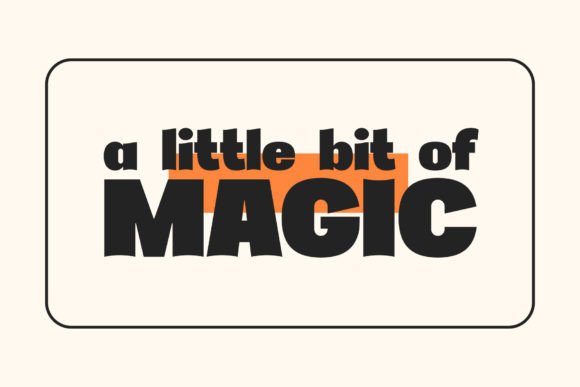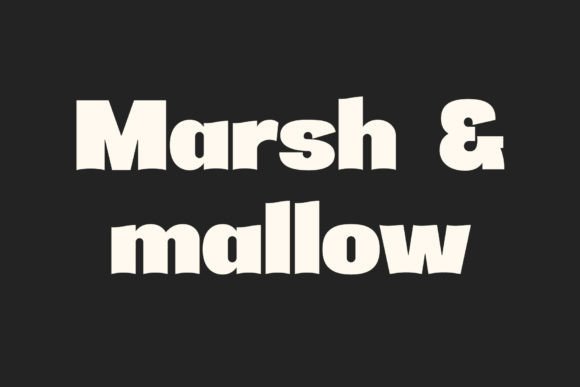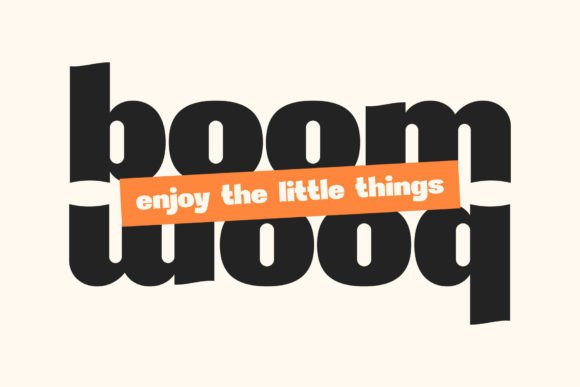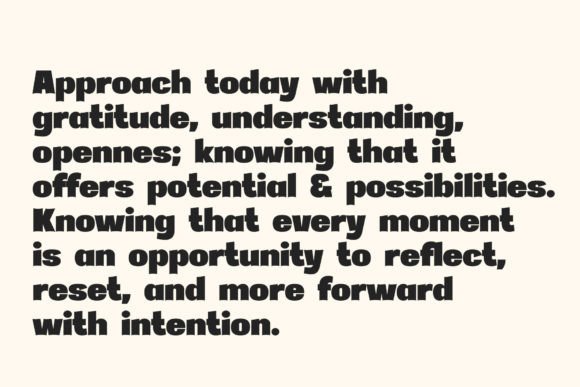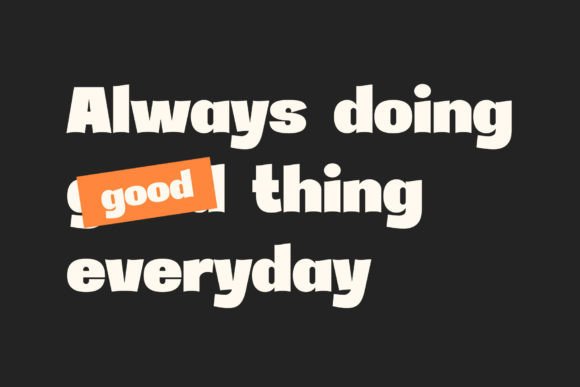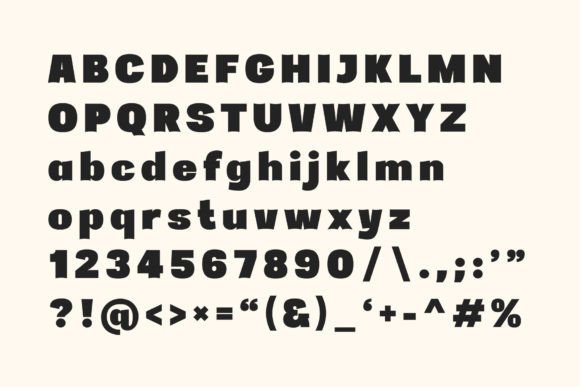
The Perfect Typographic Statement: Unleashing the Power of Collety Font
Imagine you’re brainstorming ideas for a new project, and suddenly, a spark of creativity hits you – a bold, eye-catching typography that screams “notice me!” That’s the moment when the perfect font can make all the difference. For designers, finding the right font can be a game-changer, elevating their work from good to great.
Enter Collety Font, a modern sans serif display typeface designed to make a statement. With its uniquely shaped letters, Collety Font is perfect for logos, posters, packaging, branding, invitations, and more. This font is not just about aesthetics; it’s about conveying a message, evoking emotions, and leaving a lasting impression.
As a designer, you’ll appreciate the versatility and impact of Collety Font. Its bold and modern design makes it an ideal choice for any project where you want to make a statement. Whether you’re working on a new branding project or creating a eye-catching poster, Collety Font is sure to help you stand out from the crowd.
Collety Font Key Features
- Font Family: Collety Font is a sans-serif typeface designed for digital use.
- Unique Characteristics: Collety Font features a clean and modern design, with a subtle rounded edge on the terminals and a friendly, approachable feel.
Collety Font Review
As a designer, I’ve had the chance to work with various fonts, and Collety is one of the latest additions to my collection. Overall, I’m quite impressed with its unique features and versatility. ✨ Here are some aspects that caught my attention:
- Customizability: Collety comes with a range of weights and styles, making it easy to adapt to different design projects.
- Legibility: The font is highly legible, even at smaller sizes, making it perfect for body text and captions.
- Neutral tone: Collety’s neutral tone makes it a great choice for modern and minimalist designs.
However, like any font, Collety has its limitations. ⚠️ Here are some areas for improvement:
- Initial learning curve: The font’s unique features may take some time to get used to, especially for designers who prefer more traditional fonts.
- Lack of italics: While the font offers a range of weights, it lacks italics, which can be a drawback for certain design projects.
Overall, Collety is a solid addition to any designer’s font collection. Its unique features and versatility make it a great choice for modern and minimalist designs. While it has its limitations, I believe Collety is worth exploring and experimenting with.
For the most effective use of Collety Font, pair it with a bold or italic font to create visual contrast. It is commonly used in creative and artistic projects, such as invitations, posters, and social media graphics. Use it sparingly to add a touch of elegance and sophistication to your designs.
Alternatives to Collety Font for Designers
Lato Font is a popular sans-serif typeface that is highly legible and versatile. It is suitable for various design applications, including body text, headings, and titles. Lato Font is a great alternative to Collety Font when you need a clean and modern look.
Comparison: Lato Font has a similar modern feel to Collety Font but with a more rounded and friendly appearance. It is also more versatile and can be used in a wider range of design contexts.
Montserrat Font is a geometric sans-serif typeface that is inspired by urban typography. It is designed for use in digital media and is particularly well-suited for headlines and titles. Montserrat Font is a great alternative to Collety Font when you need a bold and modern look.